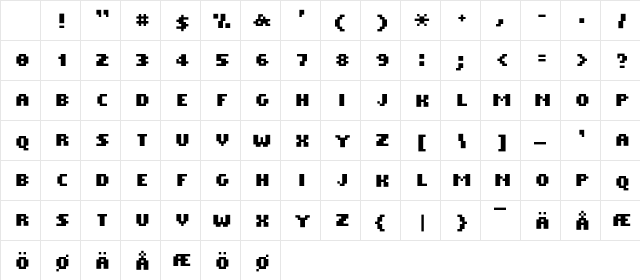
Complete Dwarf Fat glyph index. Displaying only characters natively supported by Dwarf Fat font.
Dwarf is a composed and adaptable typeface that performs quietly and consistently across a wide range of design contexts.